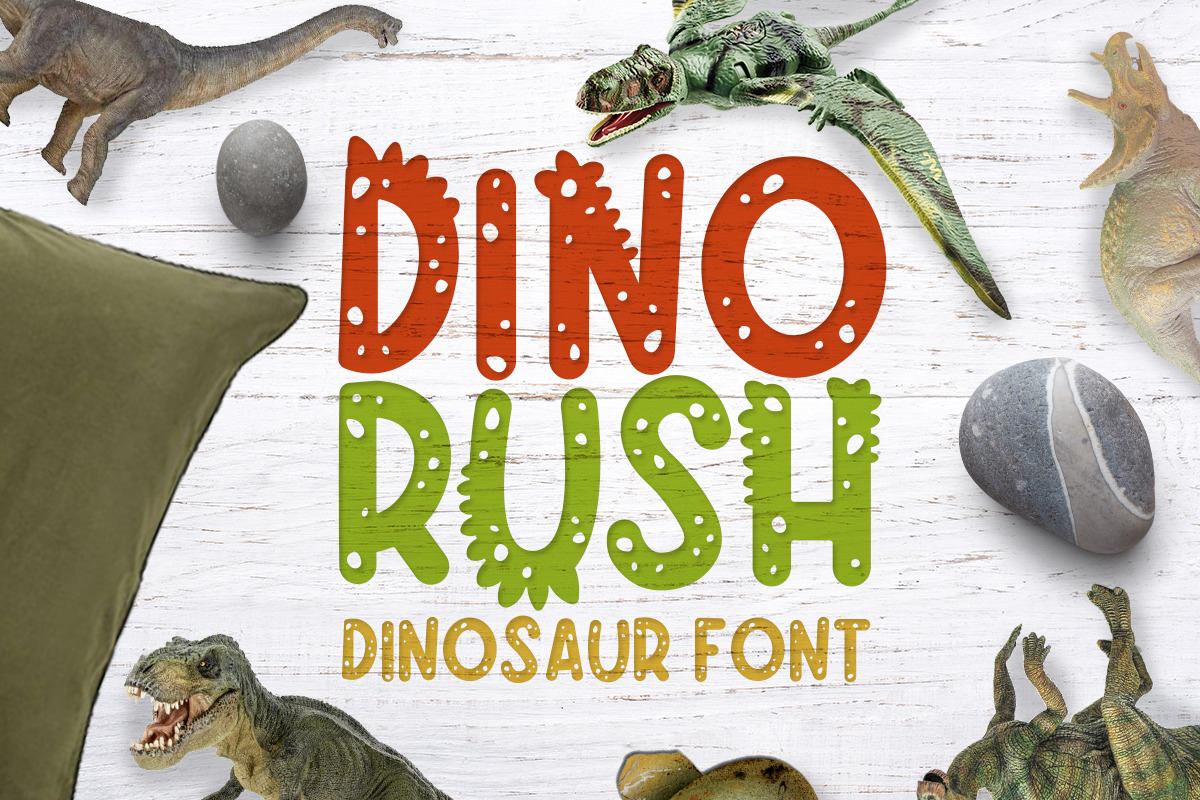
Please note, to use this font for commercial purposes, you must purchase the full version. Dino Rush is a fun and adventurous font inspired by the world of dinosaurs. With its bold, playful letterforms and prehistoric vibe, this font is perfect for children's projects, themed events, logos, and branding. Whether you're designing for a dinosaur-themed party, a kids' book, or a playful brand, Dino Rush adds a creative and dynamic touch to your work. Test it out and enjoy free download access for personal use. Experience the adventurous style of Dino Rush - Dinosaur Font Free Download before purchasing the commercial license. Add a roaring touch to your designs with Dino Rush.